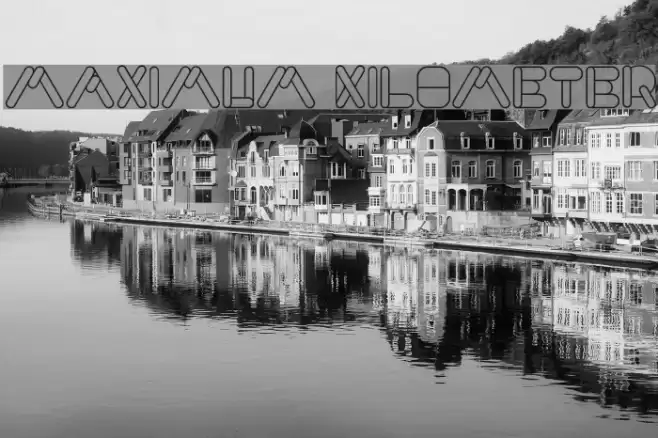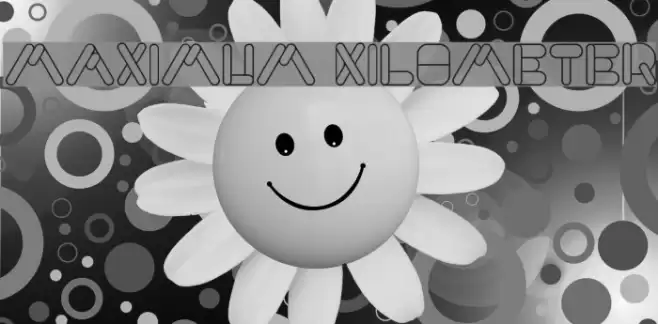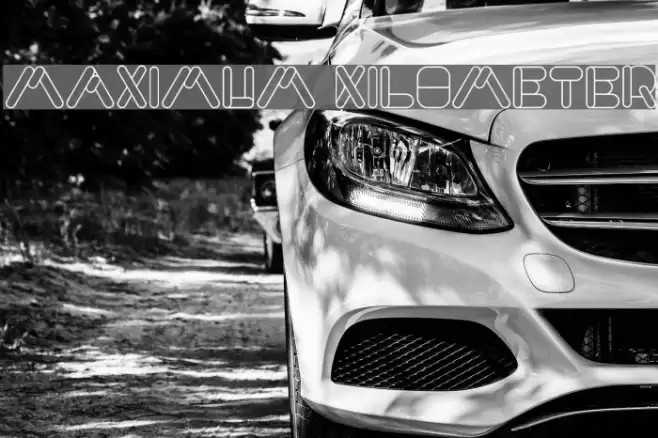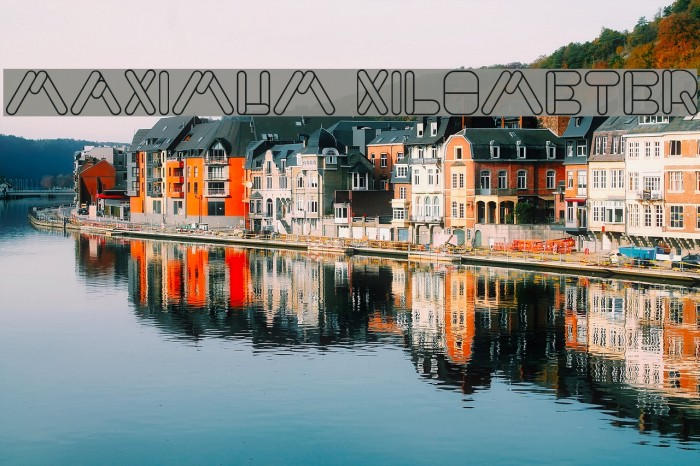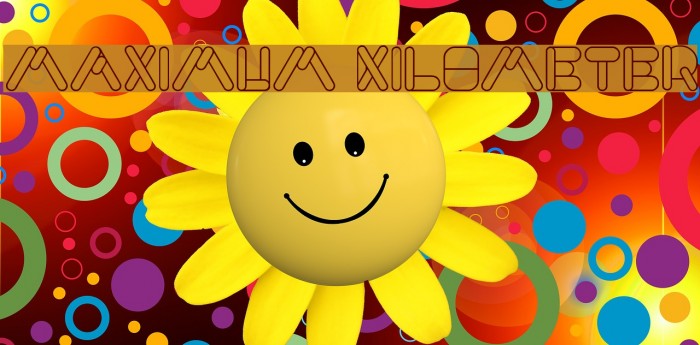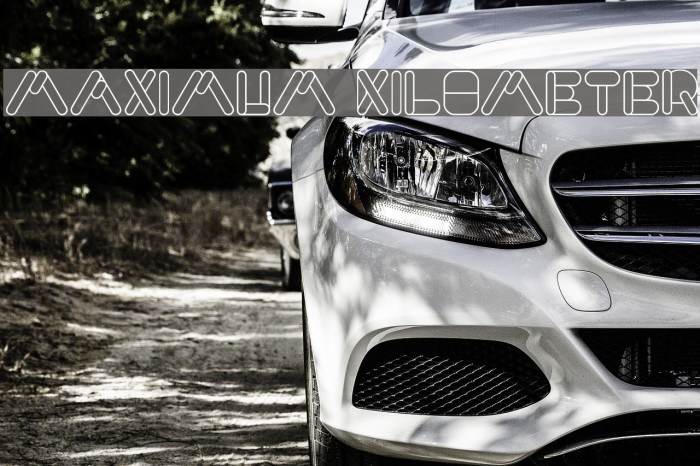
MAXIMUM KILOMETER Font
MAXIMUM KILOMETER Description
This font features a modern, geometric design with a futuristic flair. The characters are constructed with bold, rounded strokes that create a sense of movement and dynamism. The uppercase letters are particularly striking, with a unique blend of curves and straight lines that give them a distinctive, tech-inspired appearance. The font's structure is clean and minimalistic, yet it maintains a strong visual impact. The use of negative space within the letters adds an element of intrigue and complexity, making it suitable for projects that require a contemporary and innovative look.
A modern, geometric font with bold, rounded strokes and a futuristic design from Uncategorized fonts.
- Proposed Projects: Ideal for technology branding, sci-fi movie posters, modern art installations, and digital product packaging.